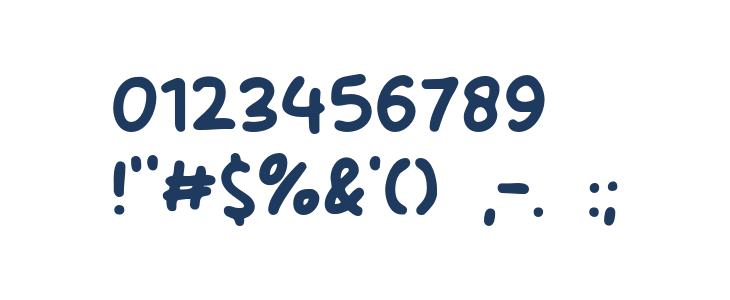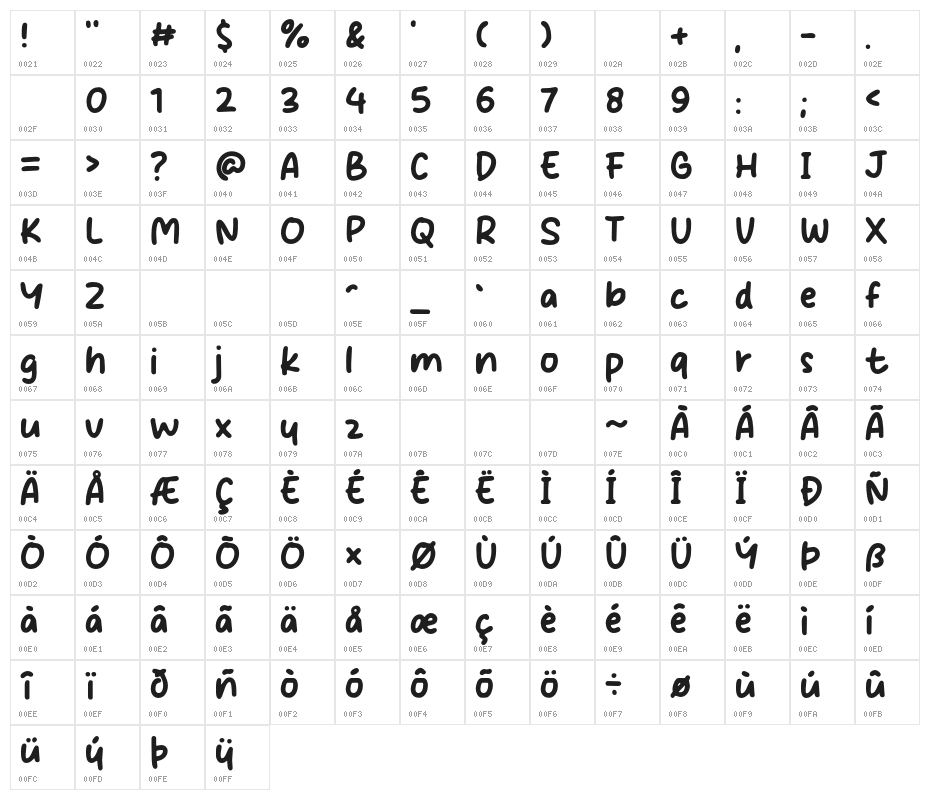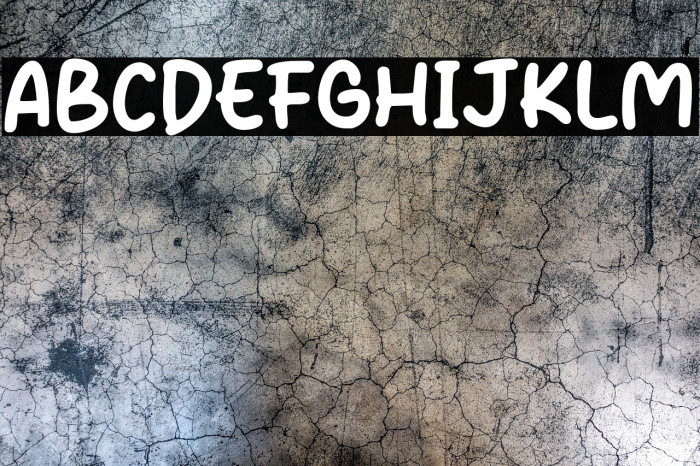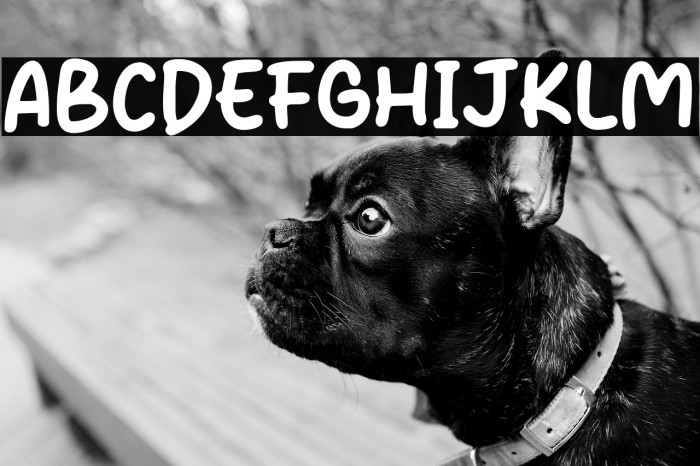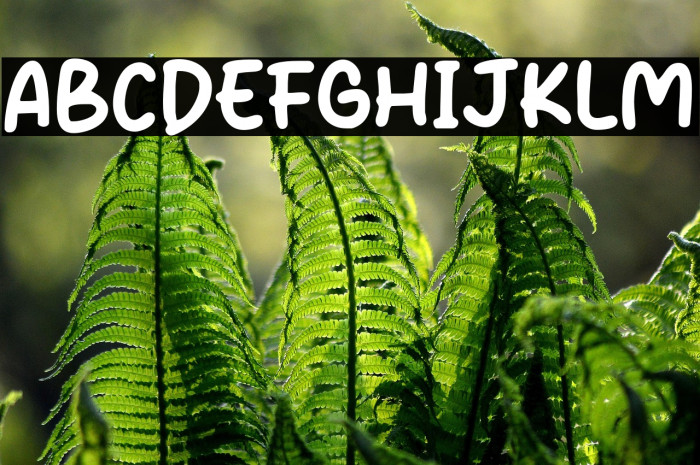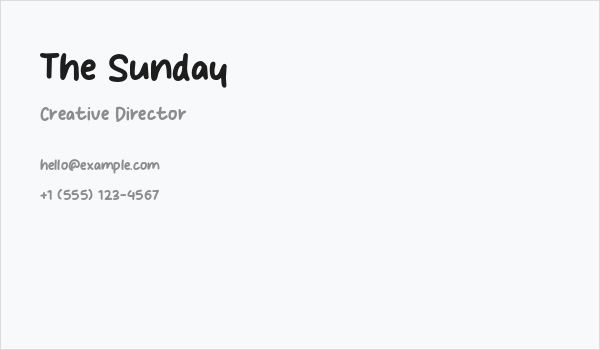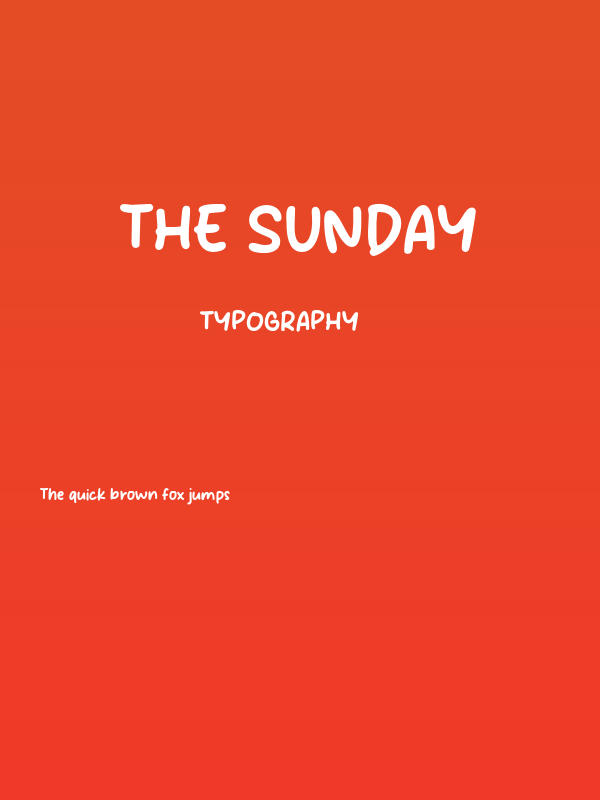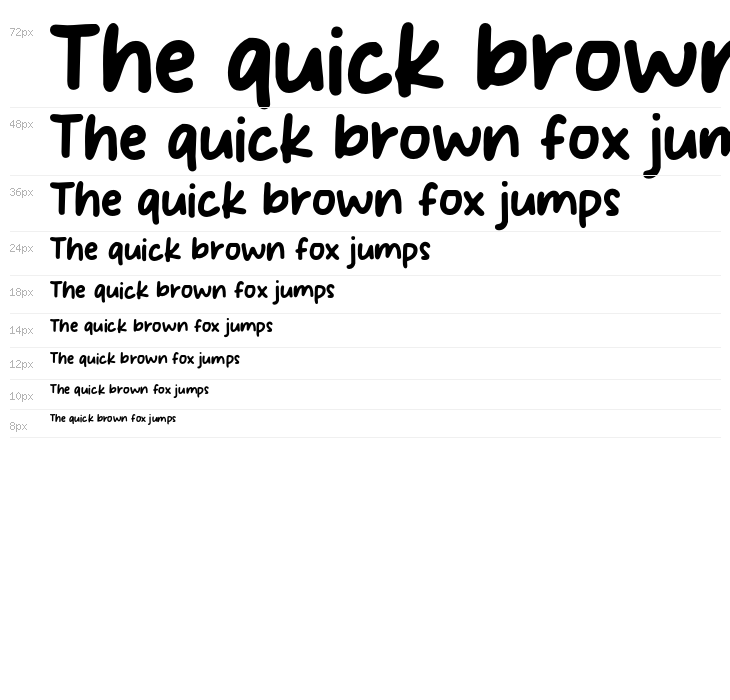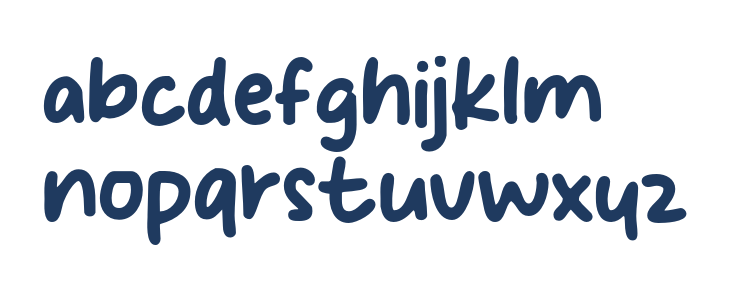
The Sunday Font
The Sunday Description
This playful and bold font features a handwritten style with rounded edges, giving it a friendly and approachable appearance. The characters are slightly irregular, adding to the casual and informal feel. The uppercase and lowercase letters maintain a consistent style, with a smooth flow that mimics natural handwriting. The numbers and special characters are equally expressive, maintaining the font's overall cohesive look. This font is perfect for projects that require a personal touch, such as invitations, greeting cards, or playful branding.